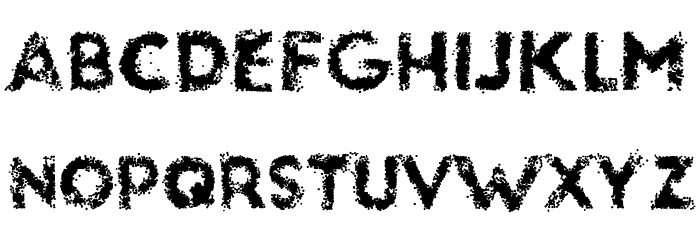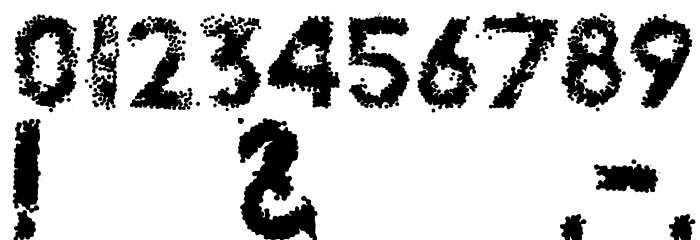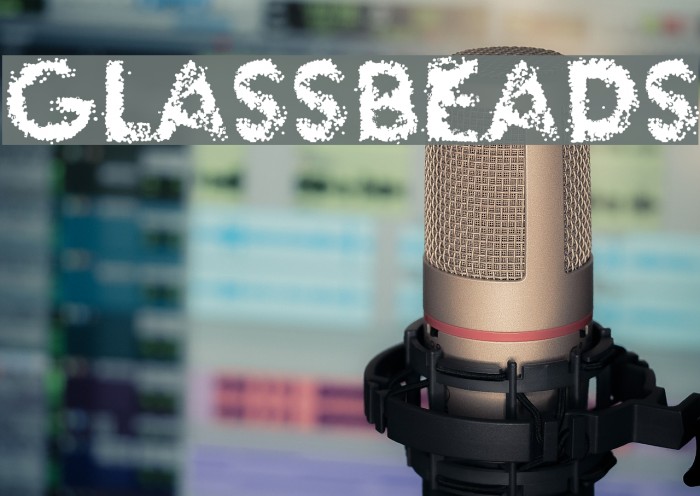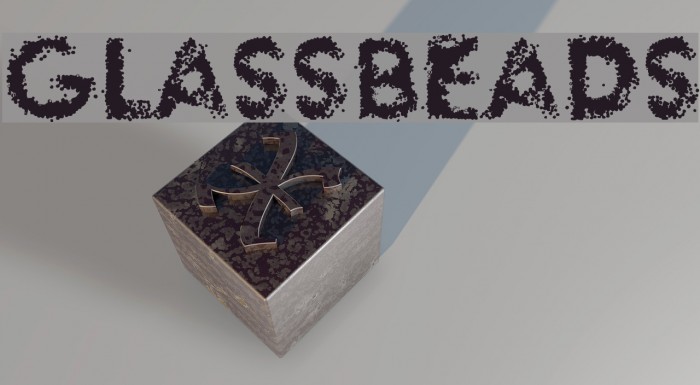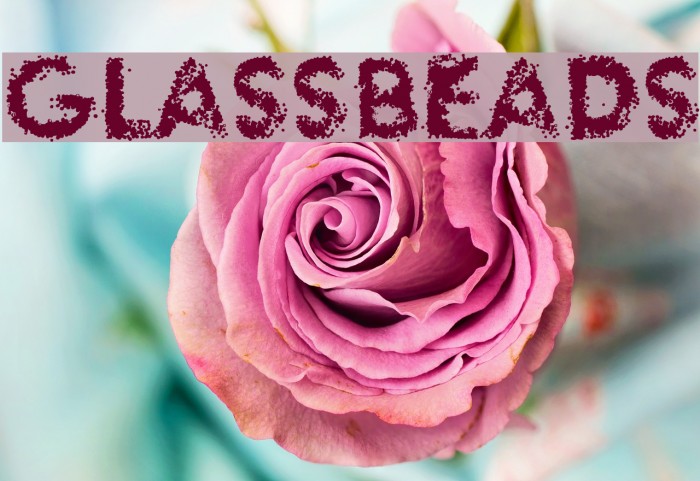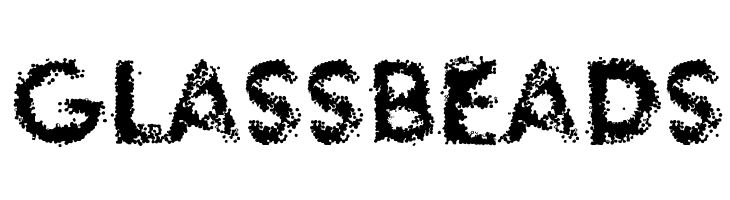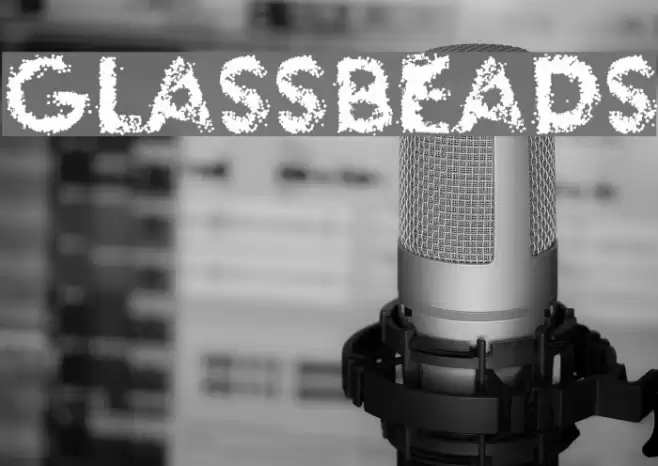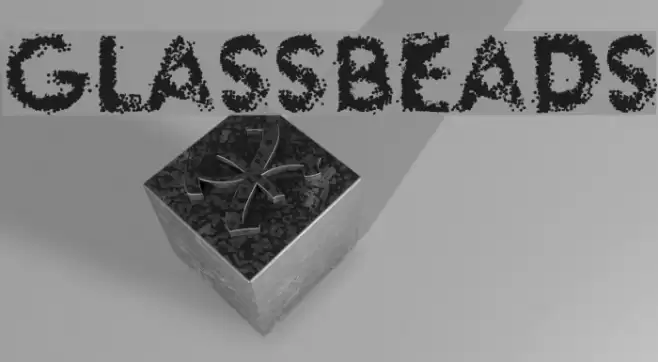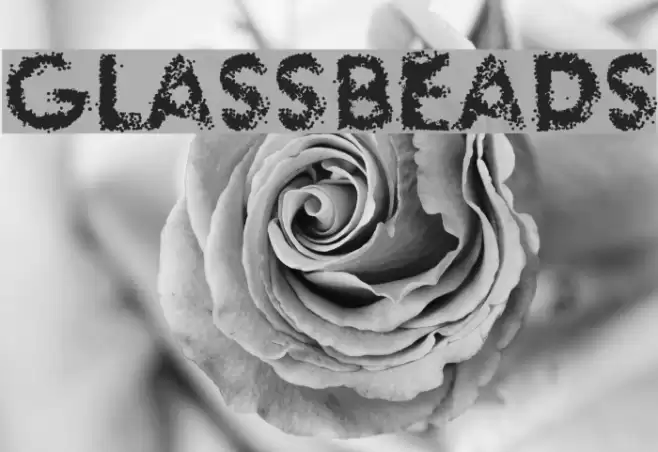
glassbeads Font
This font features a unique, textured appearance reminiscent of scattered particles or beads, creating a dynamic and artistic effect. The characters are bold and have a rough, uneven texture that gives them a handcrafted feel. The uppercase and lowercase letters maintain a consistent style, with rounded edges and a playful, informal look. The numbers and special characters follow the same design, ensuring uniformity across all glyphs. This font's distinctive style makes it stand out, ideal for projects that require a touch of creativity and individuality.
A bold, textured font with a playful, handcrafted appearance.
- Proposed Projects: Ideal for artistic projects, posters, album covers, and creative branding that require a unique and eye-catching typeface.